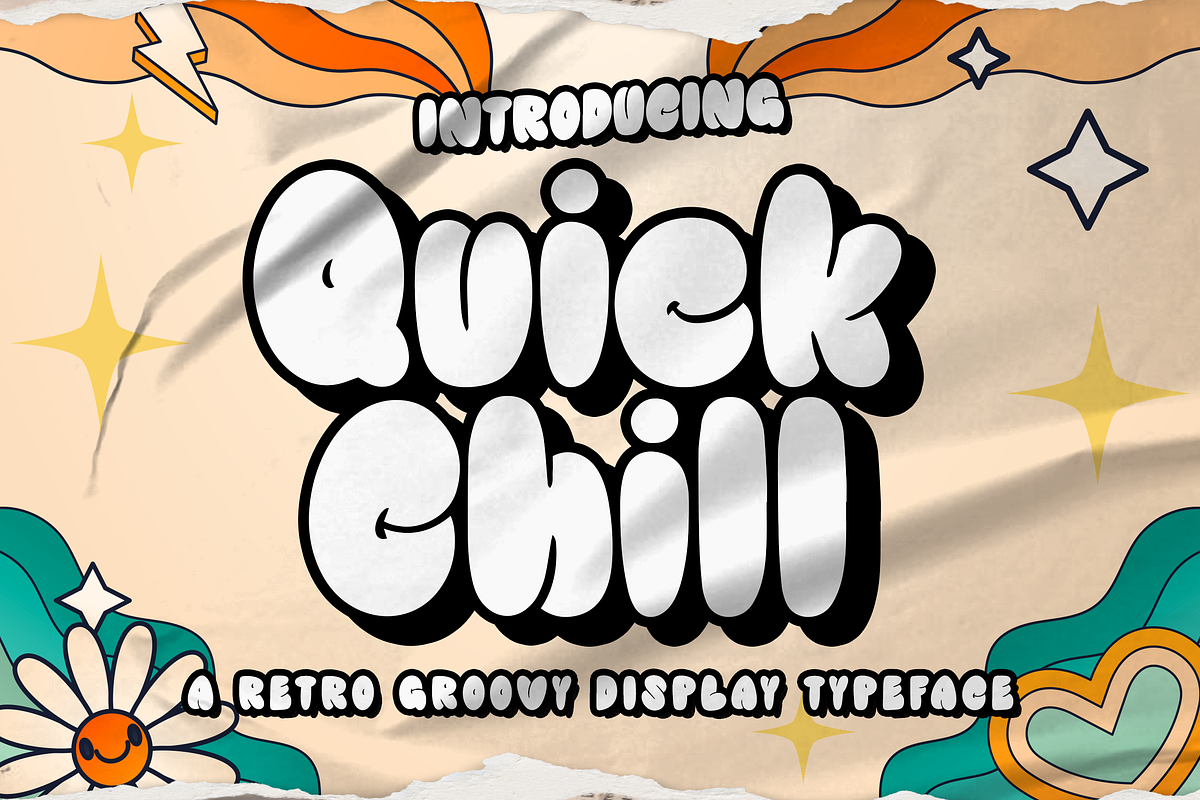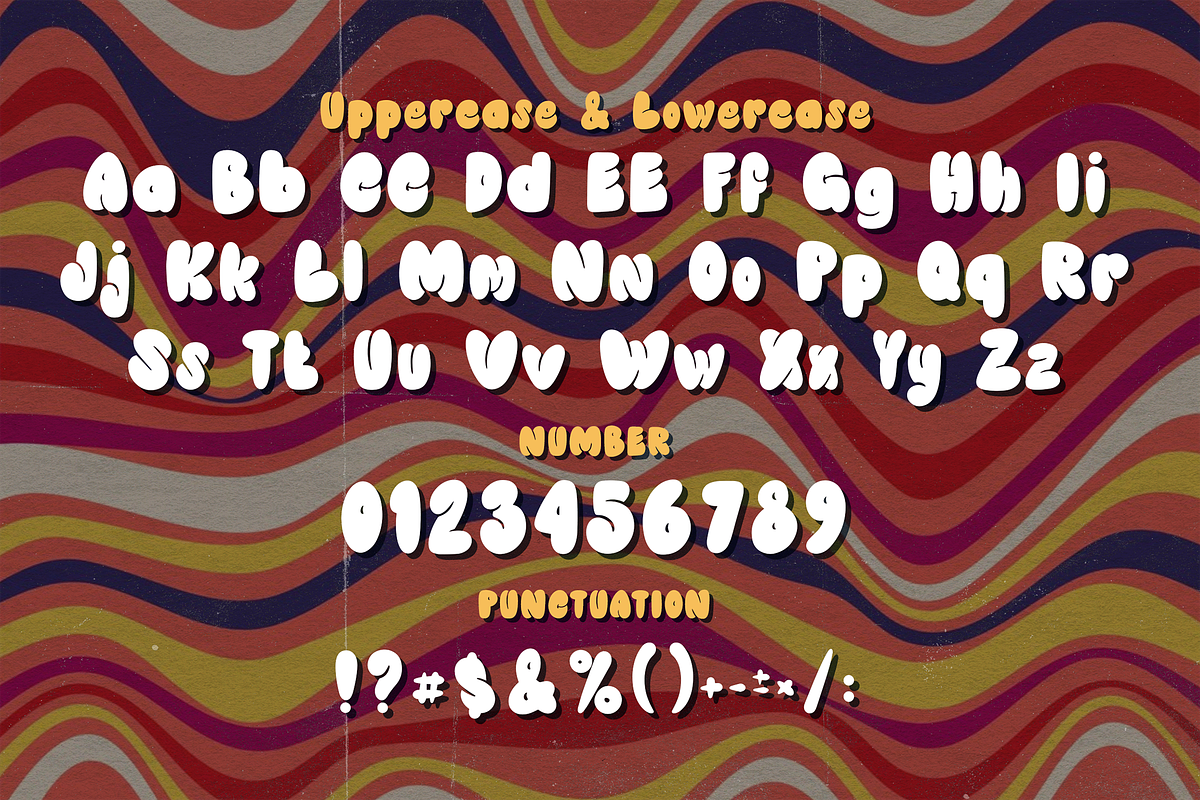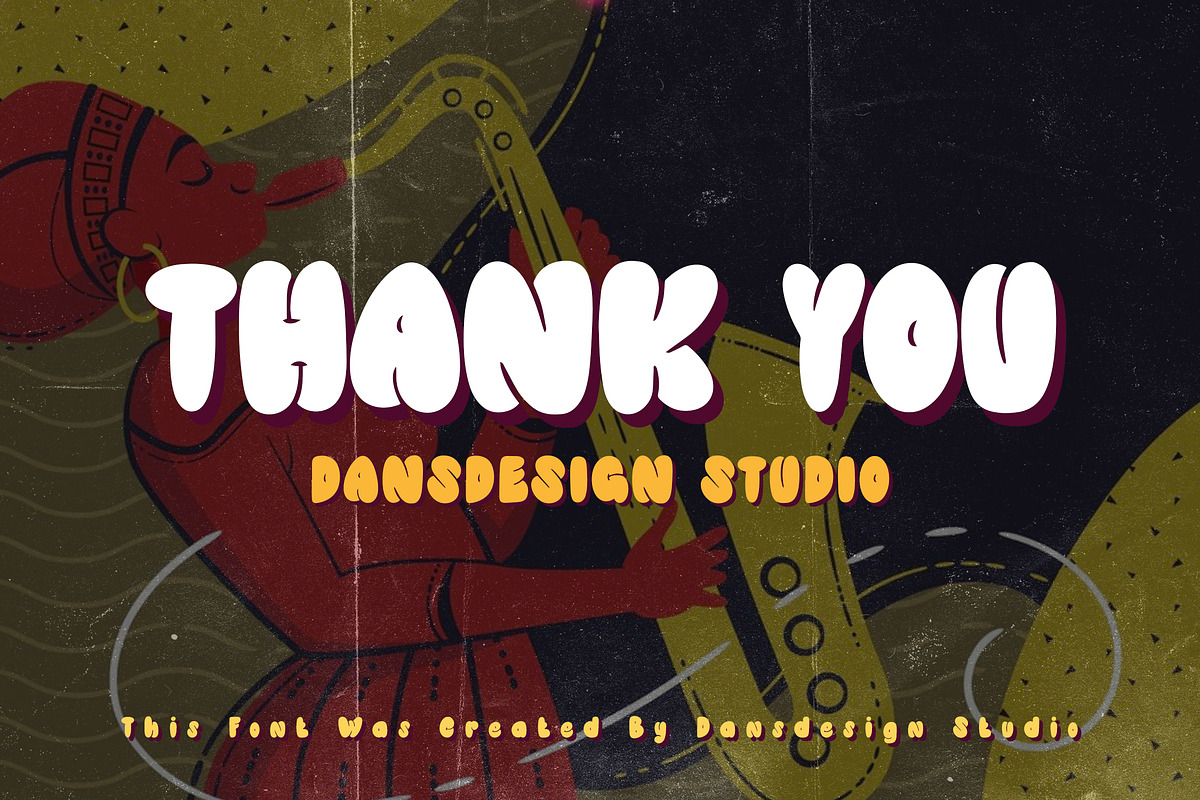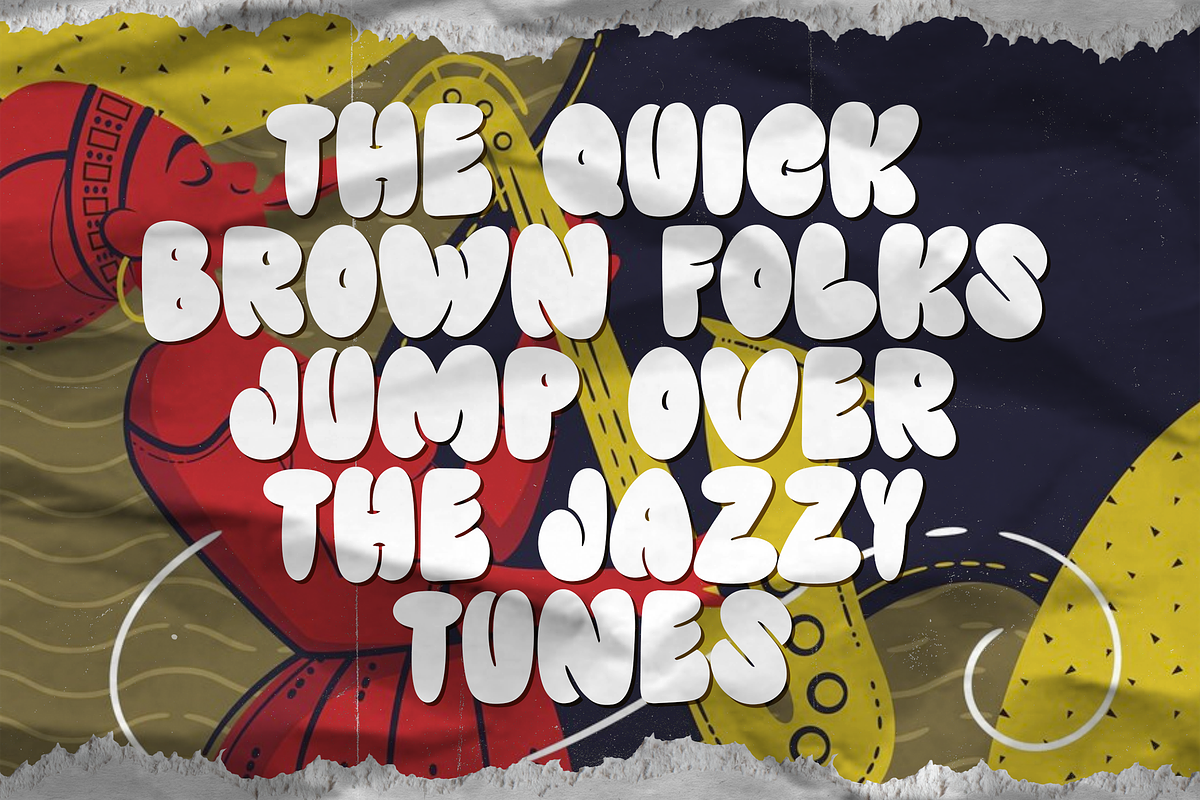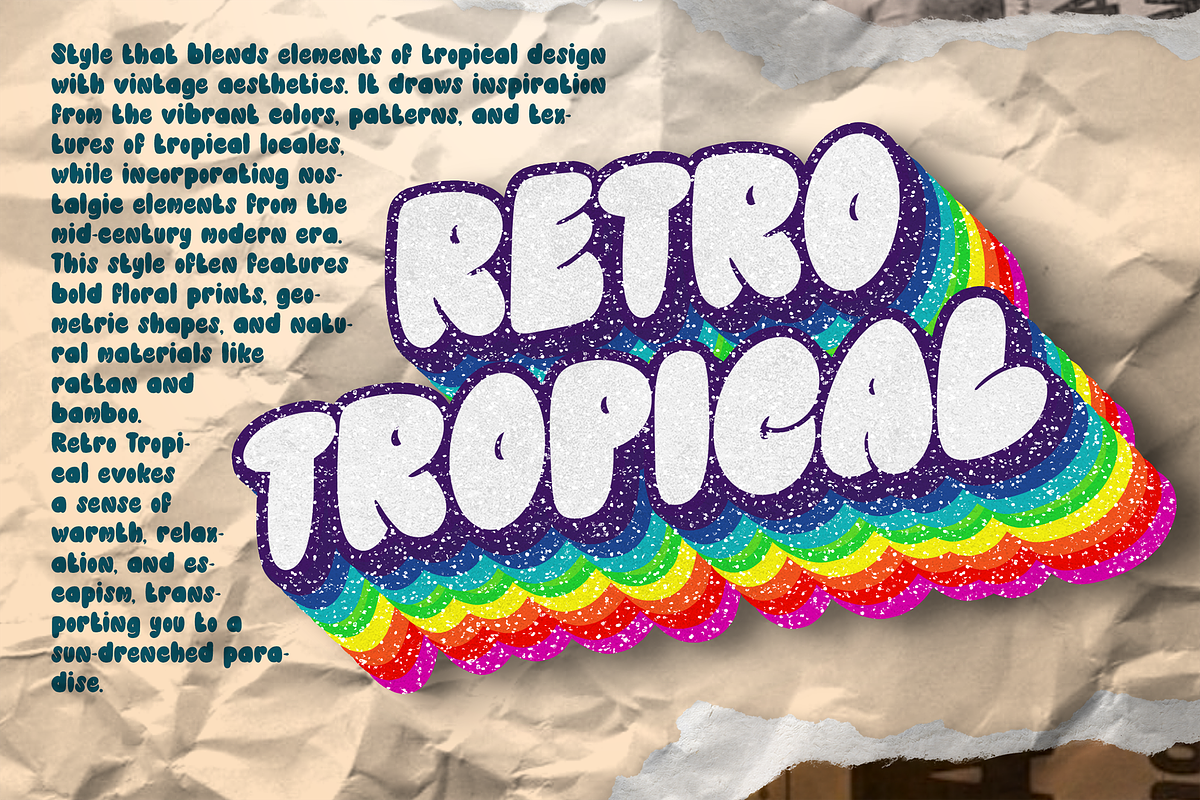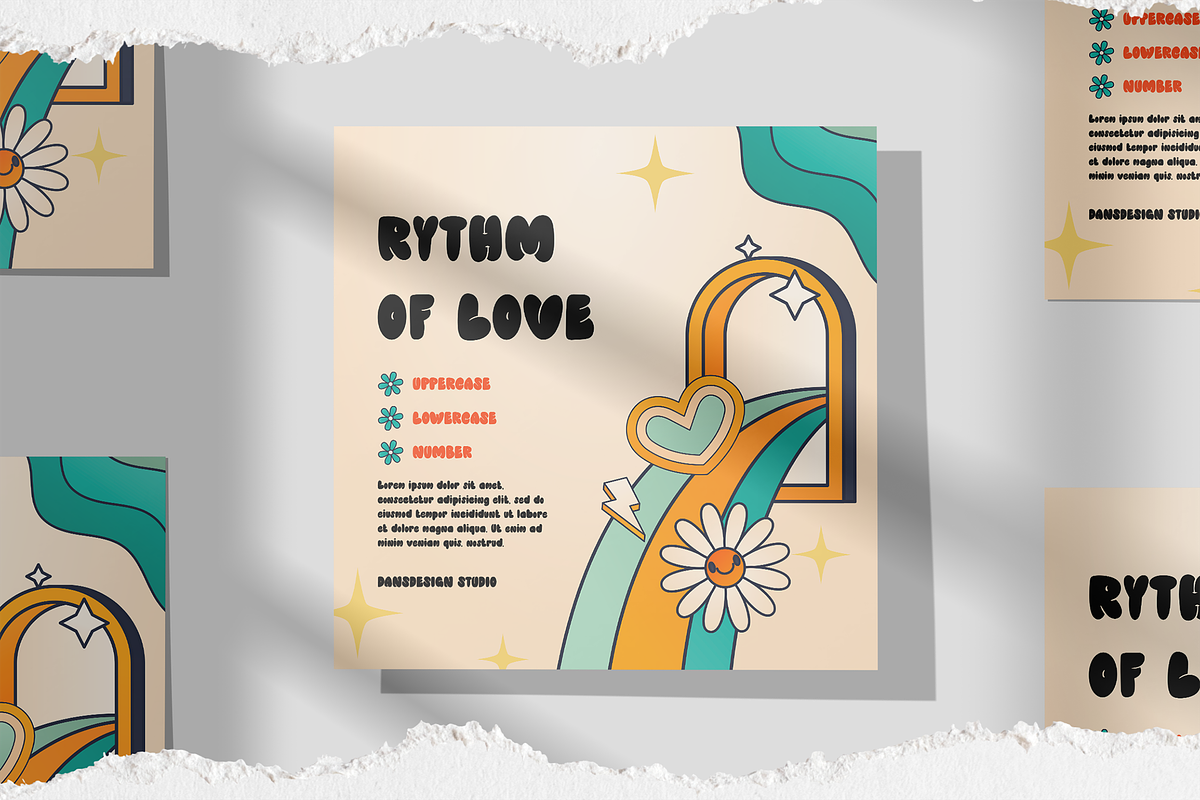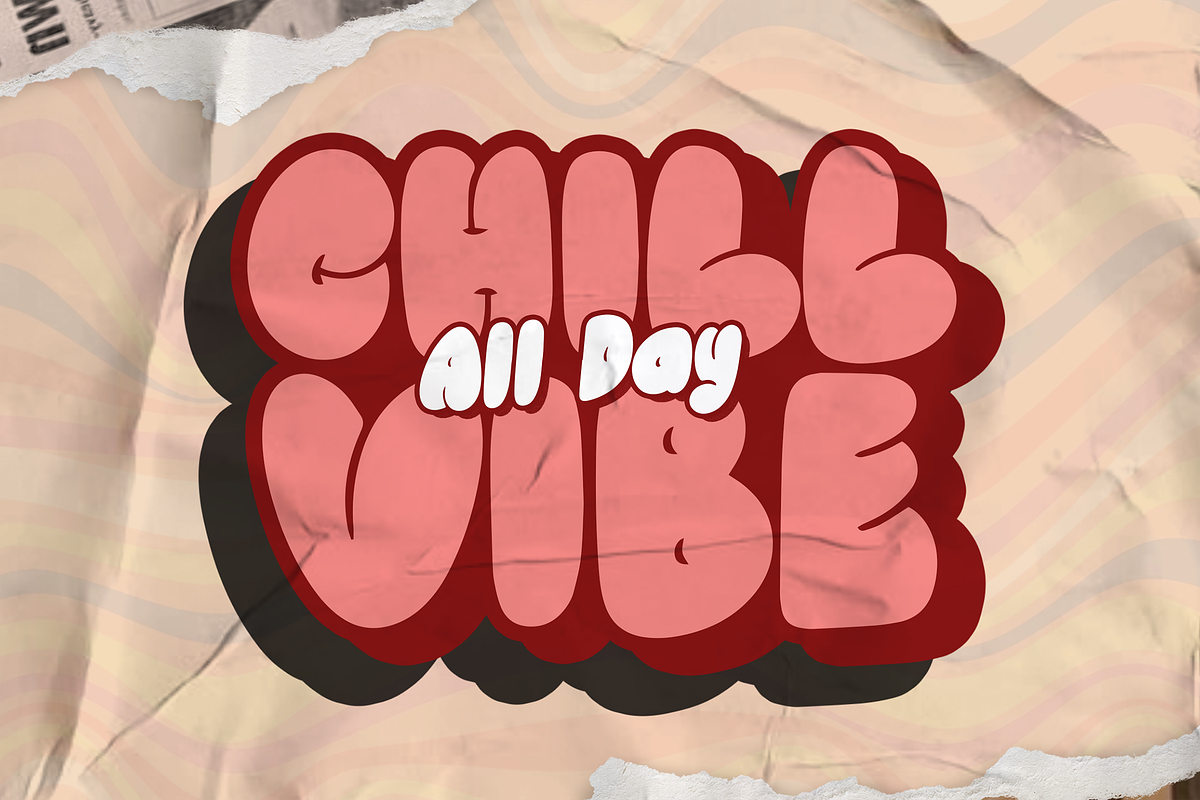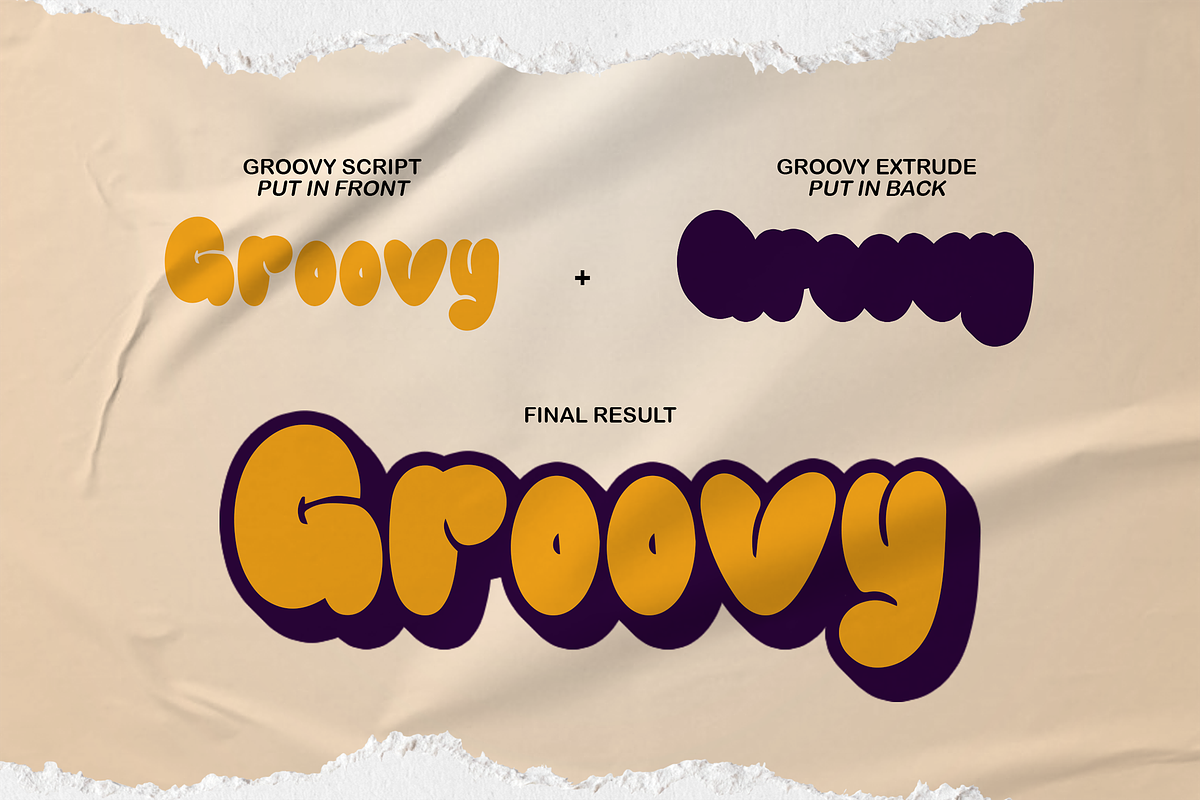
Quick Chill Groovy Graffiti Y2K
Quick Chill Groovy Graffiti Y2K Font Font is a distinct, highly detailed Groovy GRAFFITI Y2k Display Font. It would make a great choice for exquisite retro-urban designs, business branding, logos, Apparel designs, and more.